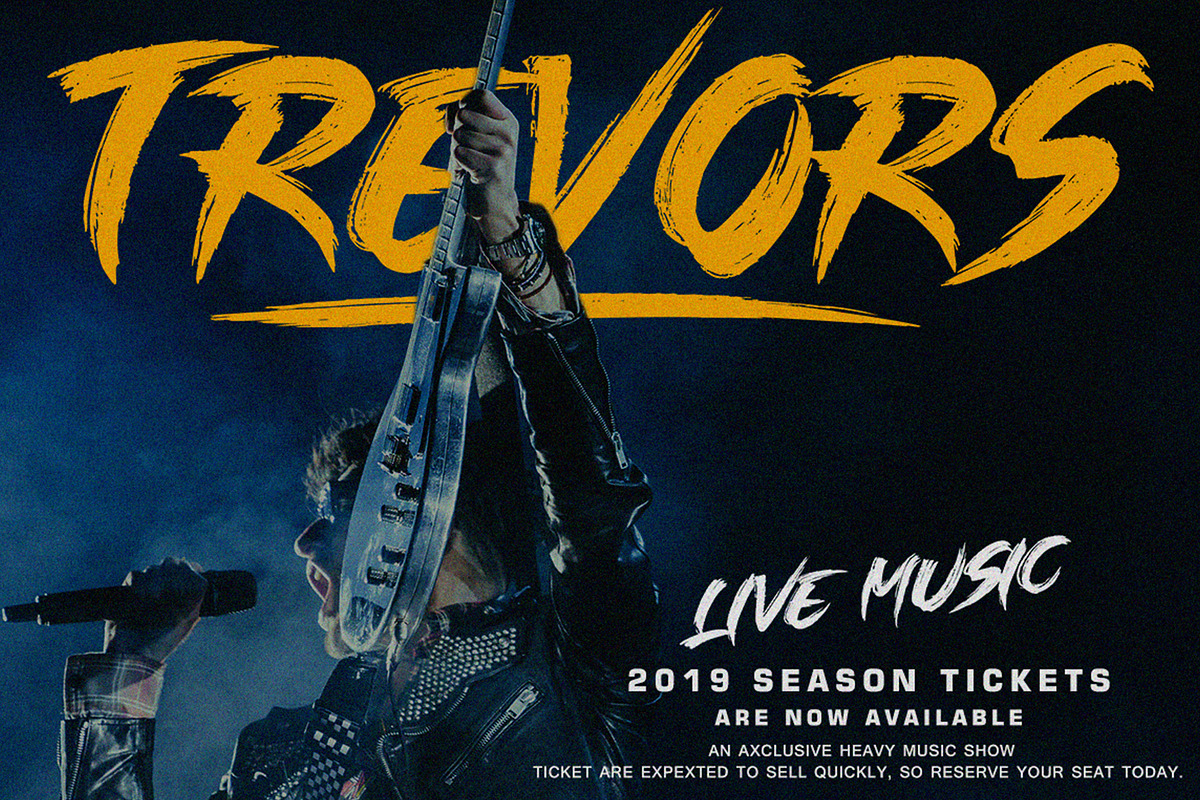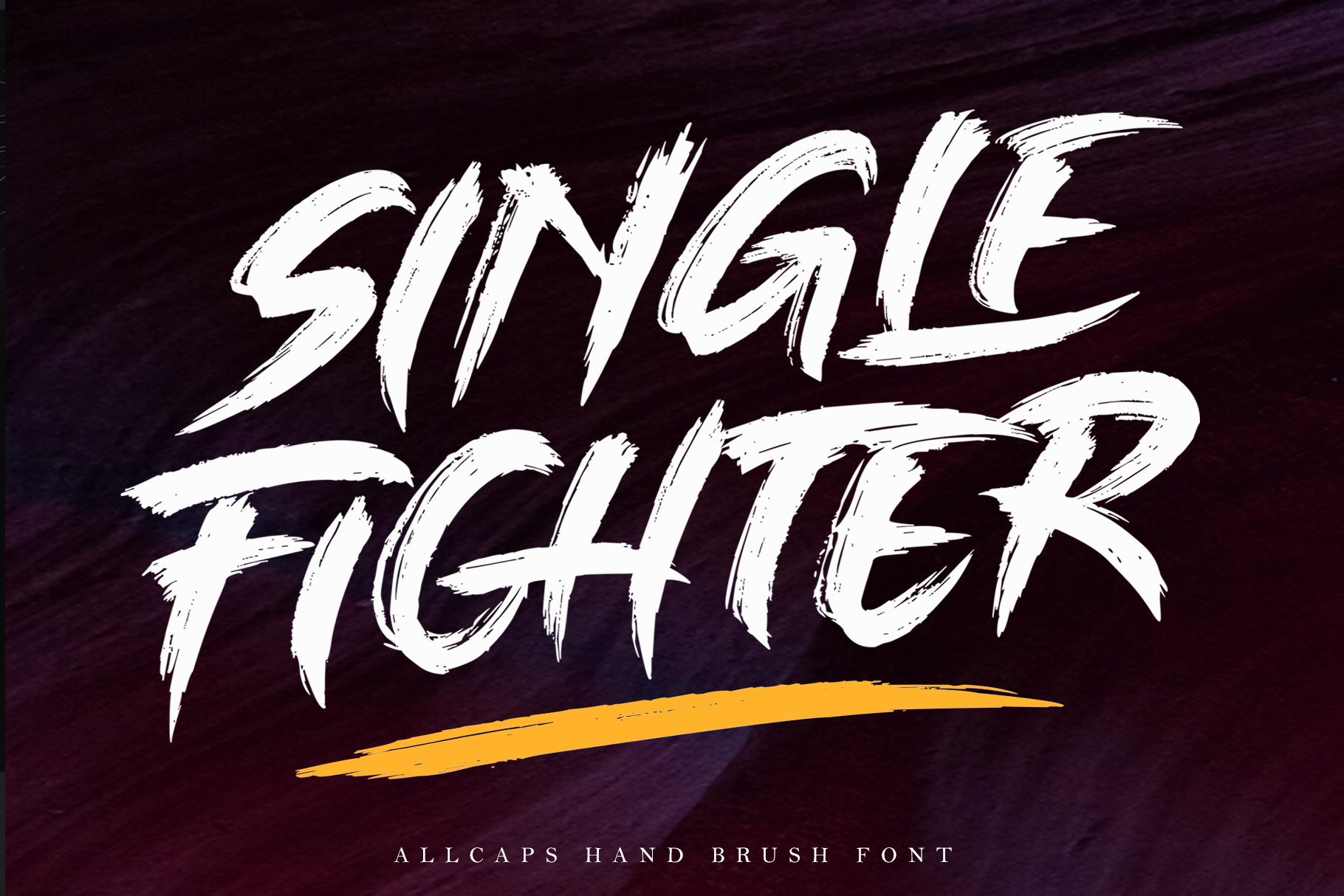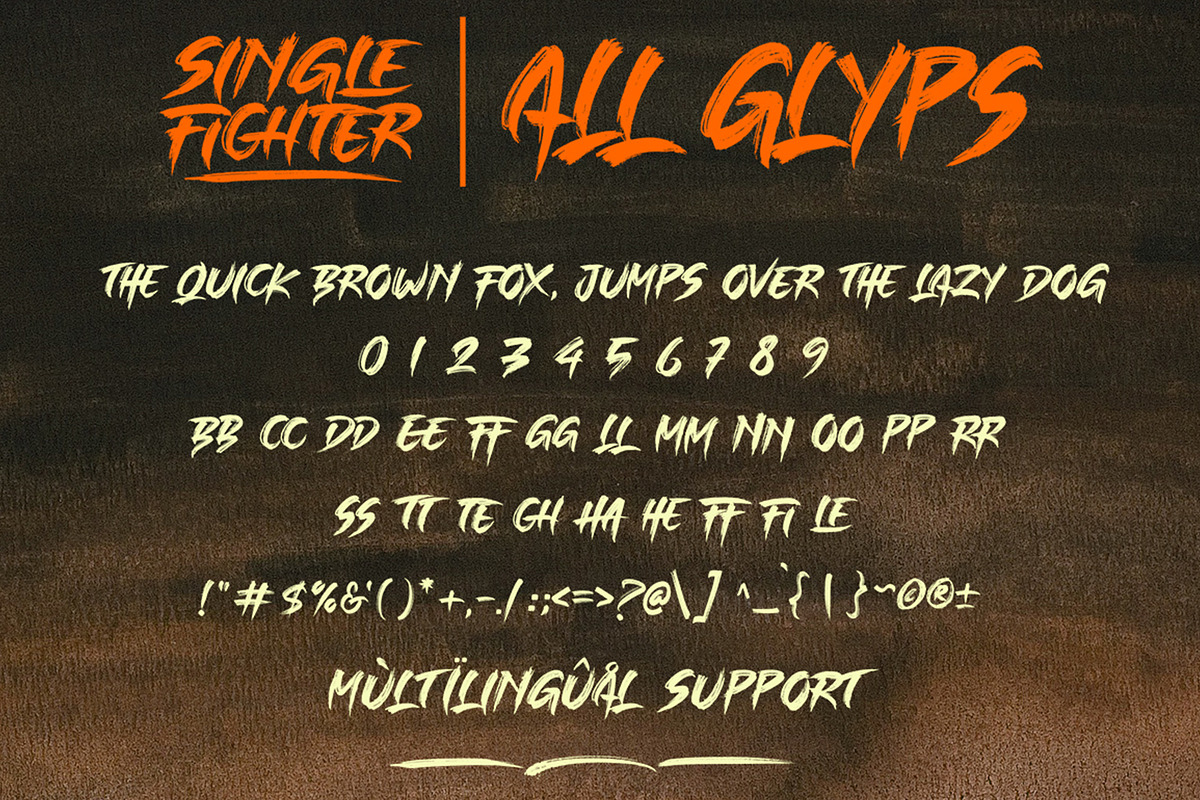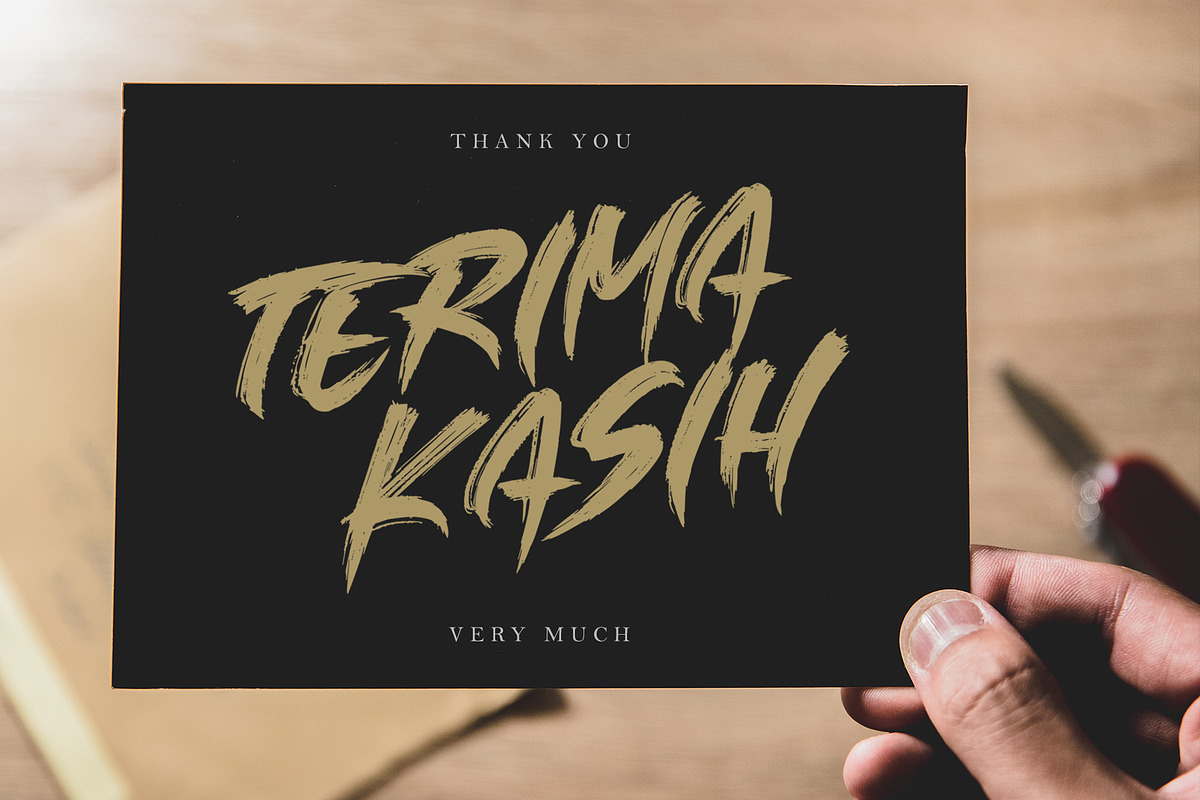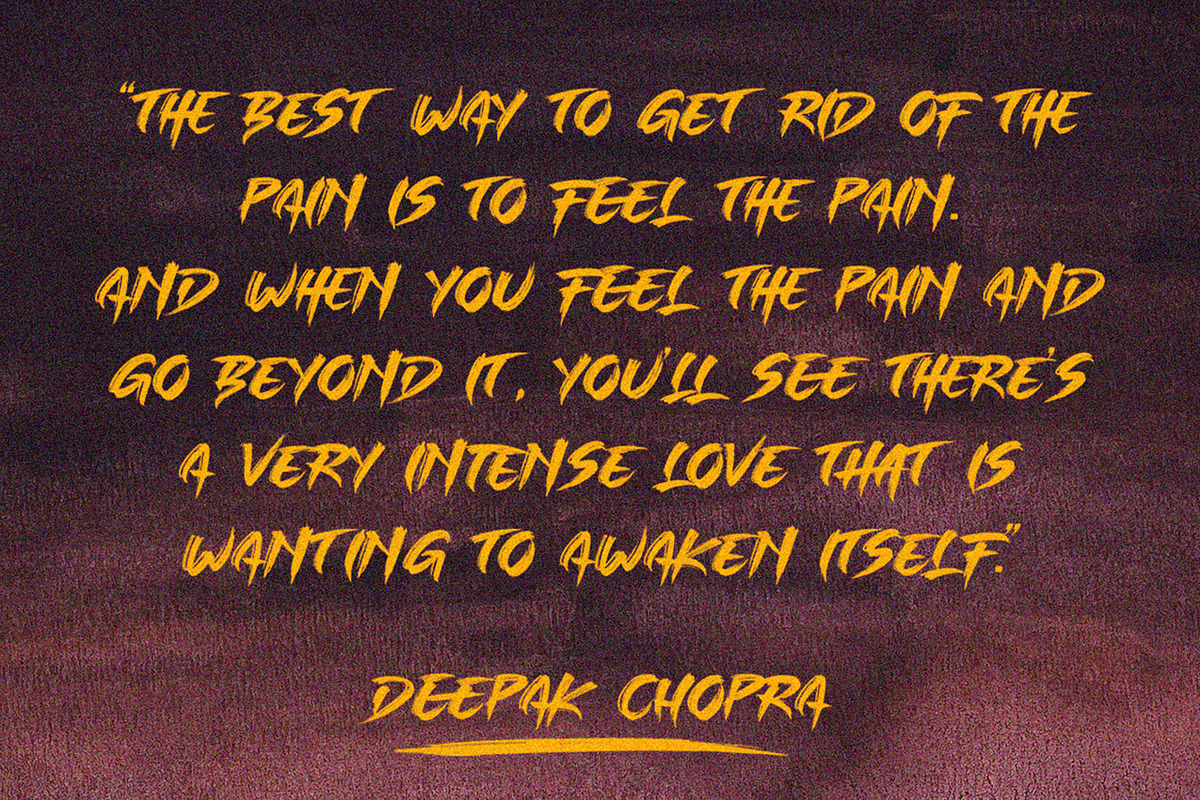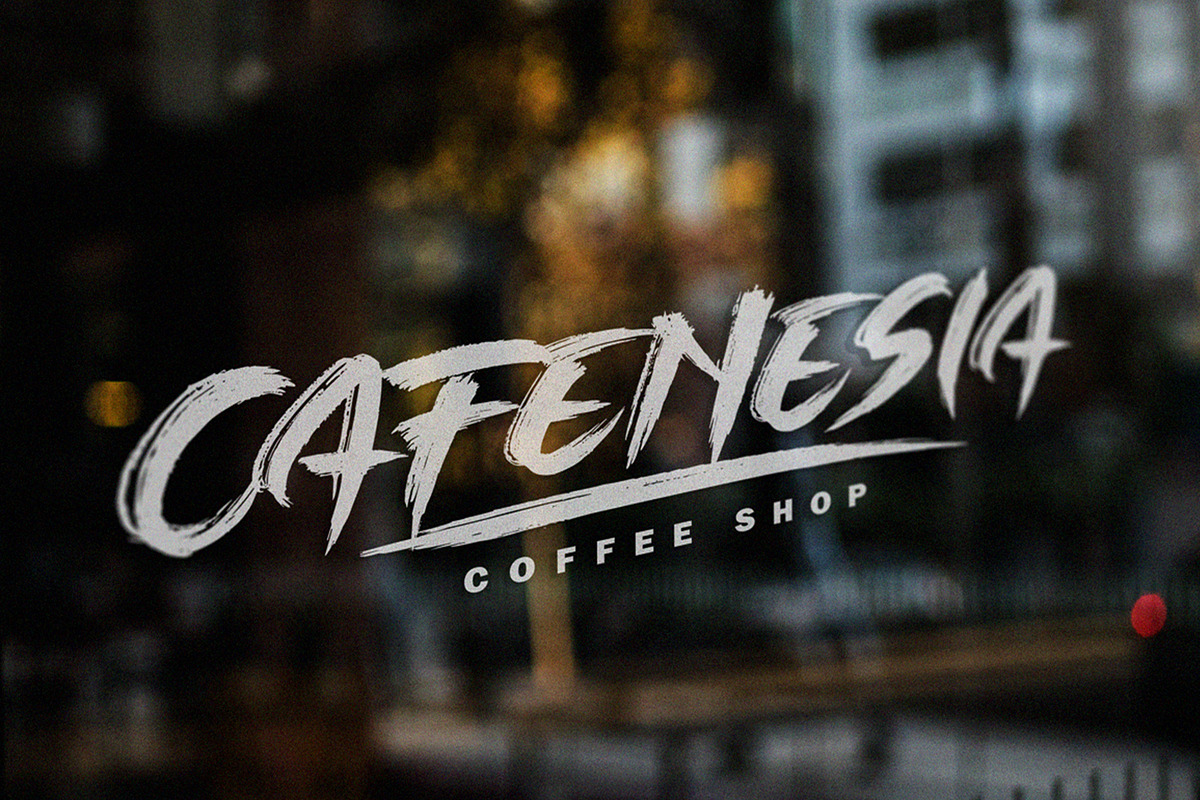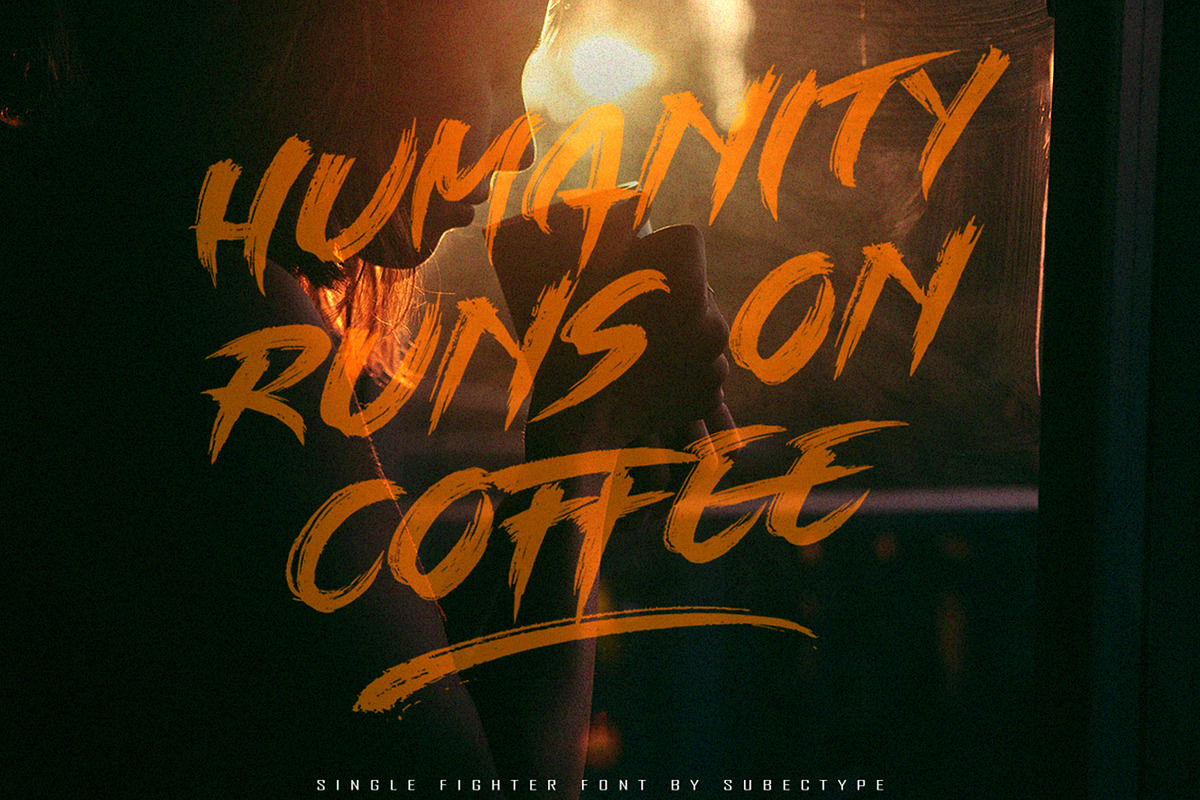
SALE! SINGLE FIGHTER / Brush Font
Single Fighter, brush font is a supercharged, street-wise brush font bursting with energy. With extra attention to quick strokes and sharp details. this font with extra swash and ligature features.
This font is perfect for challenging jobs, titles, t-shirts, websites, hoodies, and various print and digital media with energy. Single Fighter is ideal for logos, apparel, quotes, product packaging, or anything which needs a typographic turbo-boost.